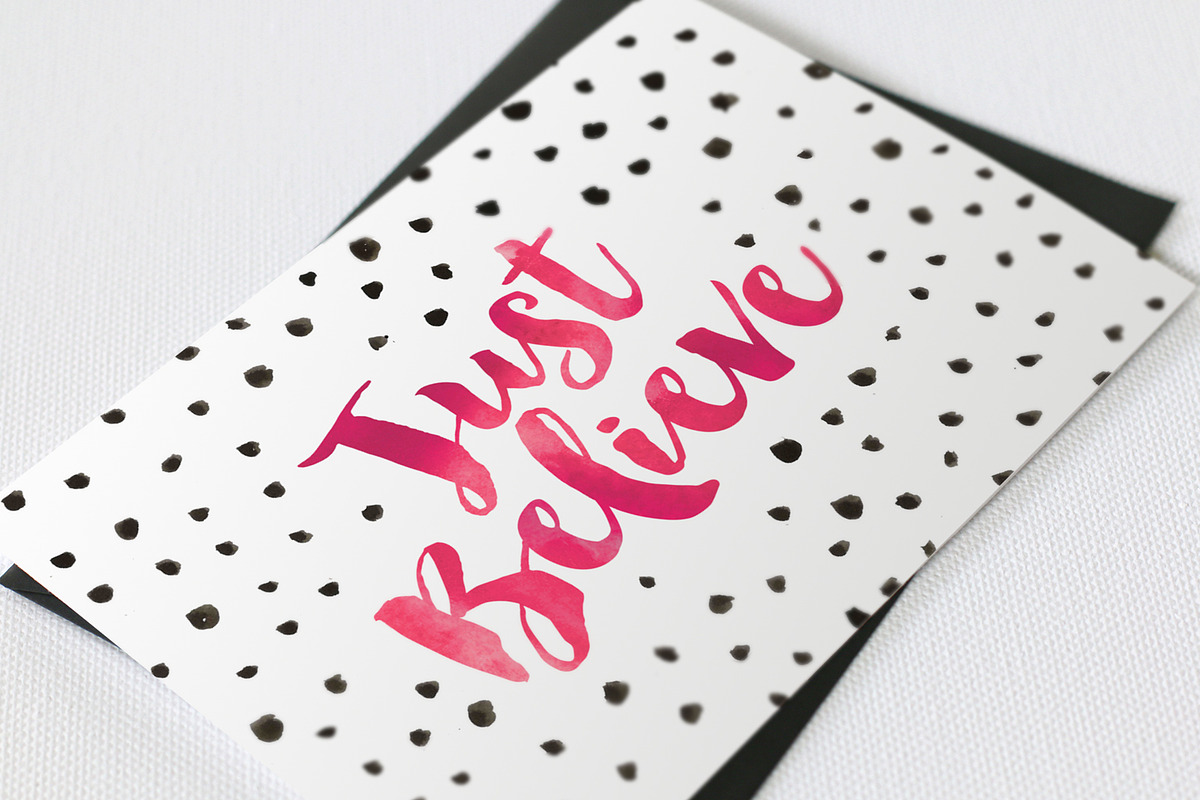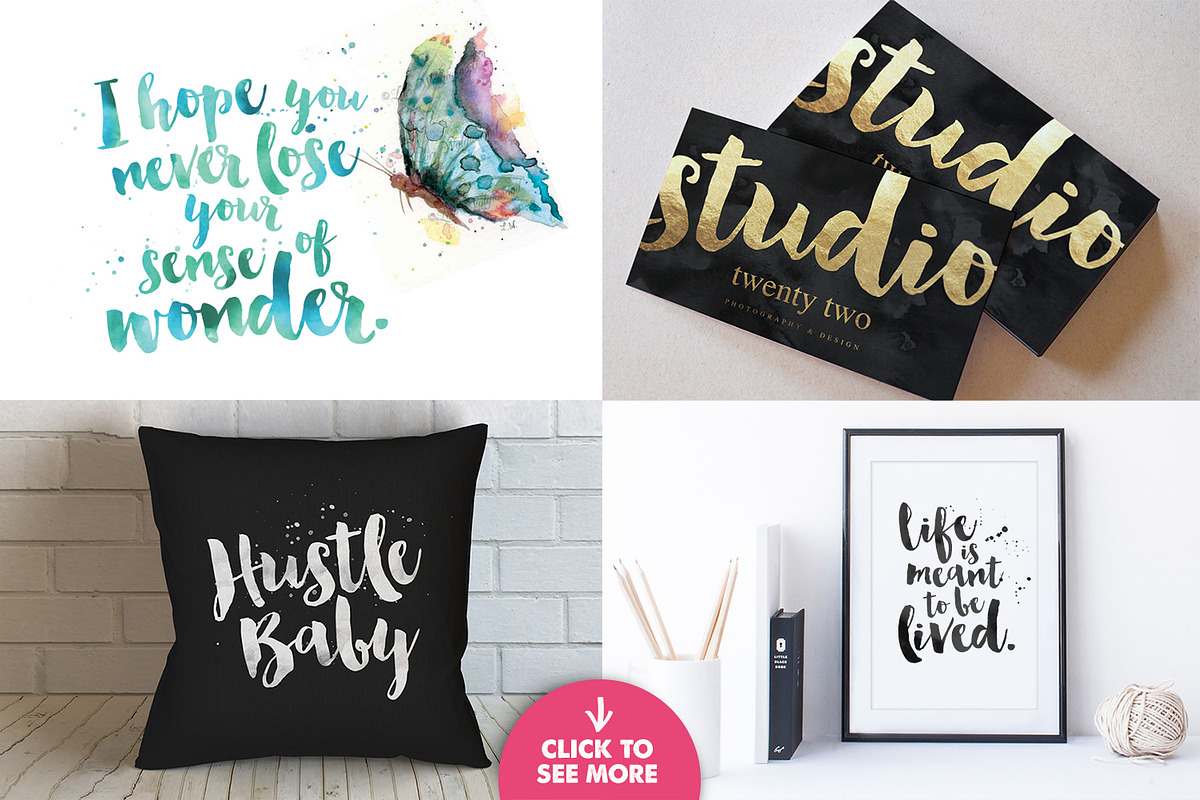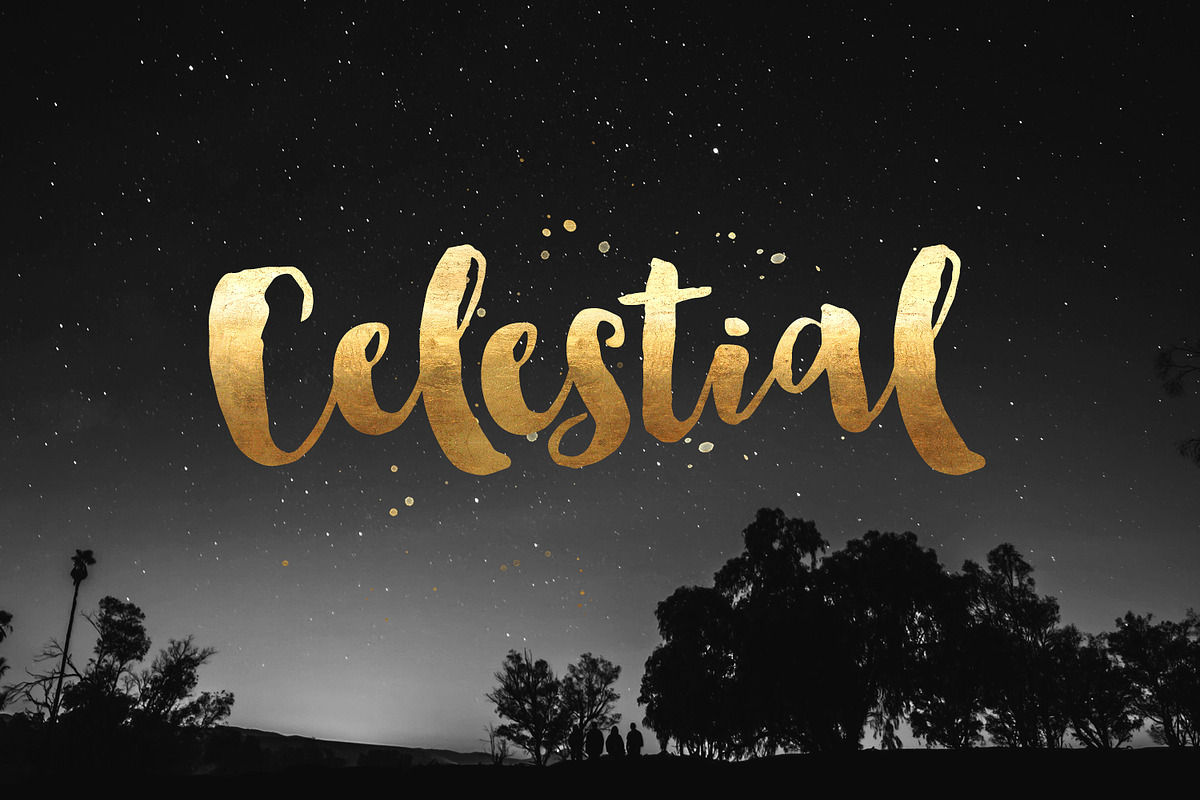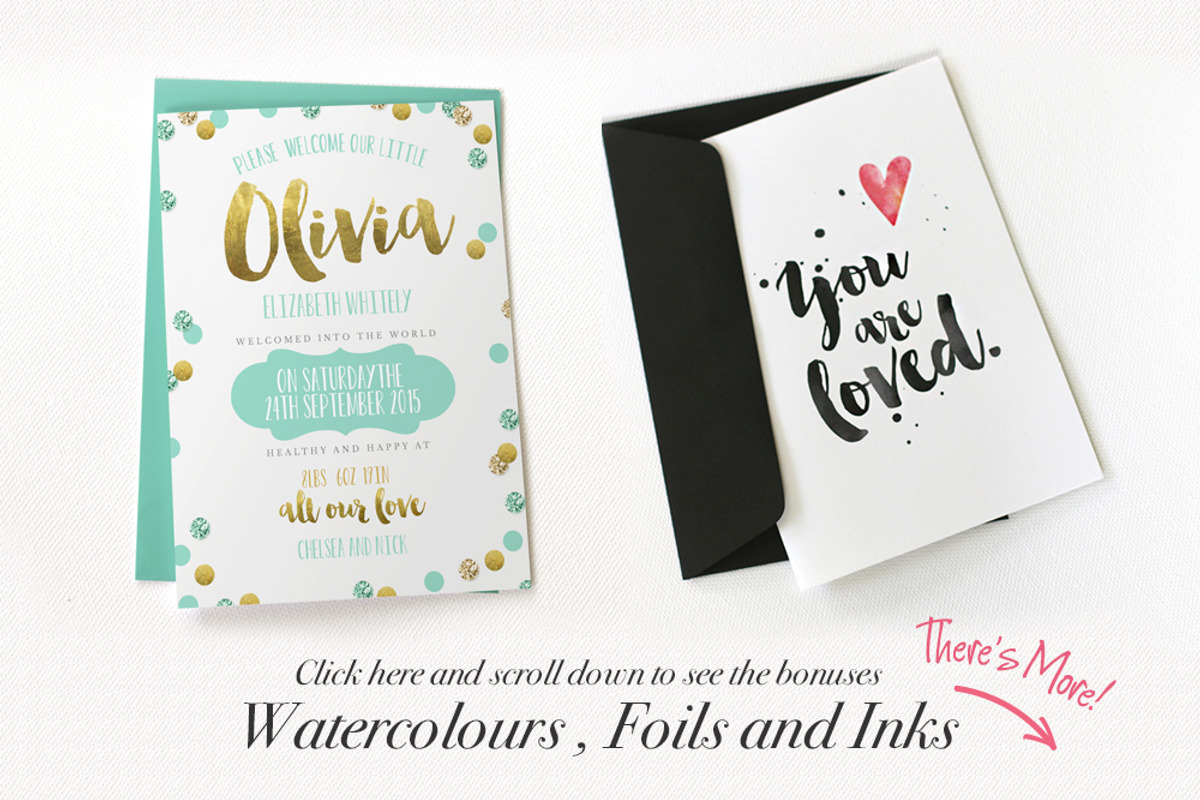
Bonjour! Typeface with Extras
Bonjour! Typeface with Extras by Nicky Laatz is a font selected for branding, posters, packaging, typography.
- Bonjour comes with alternate upper and lowercase characters, and supports international languages.
Bonjour! Typeface with Extras by Nicky Laatz fits naturally into Branding, posters, packaging, typography.